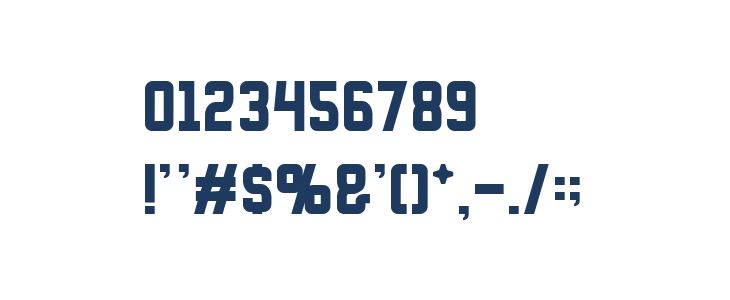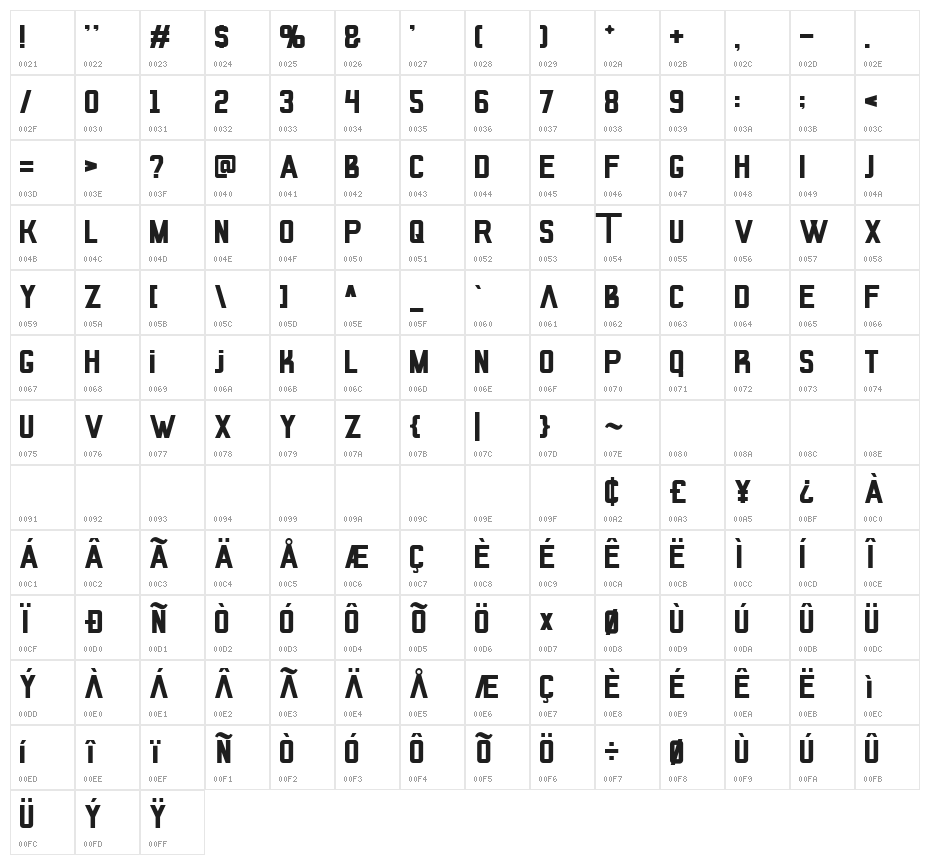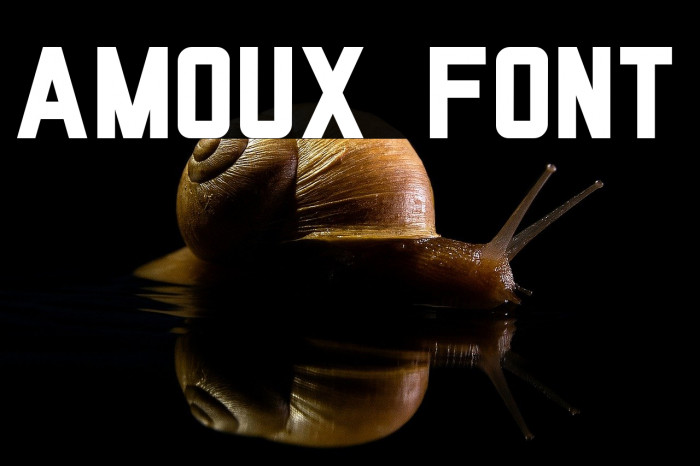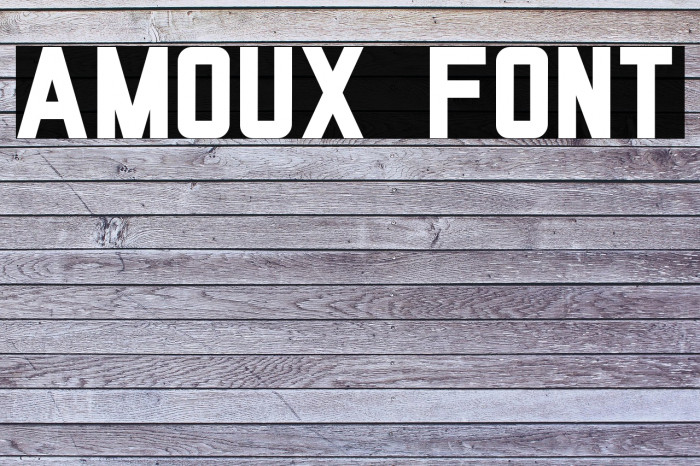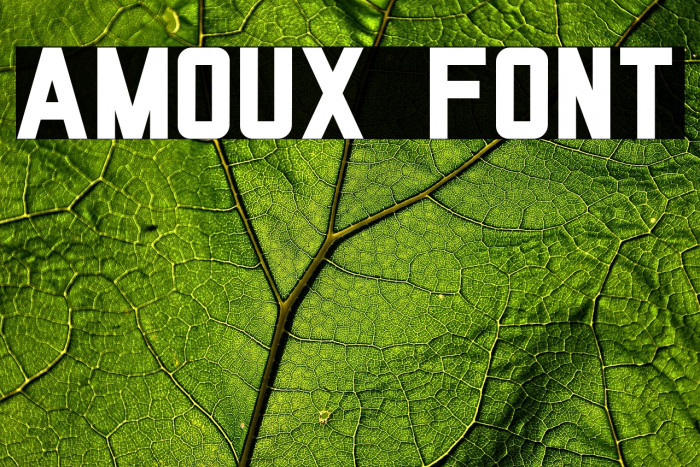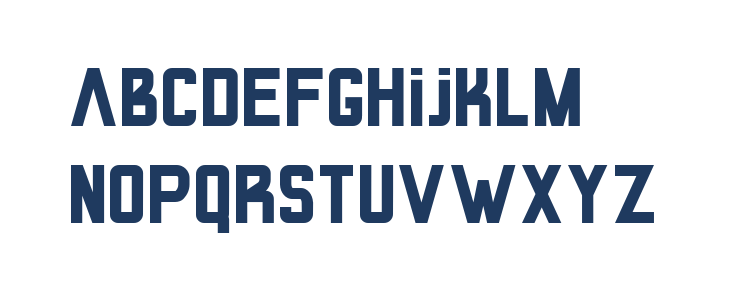
AMOUX Font
AMOUX Description
This font features a bold and assertive design with strong geometric shapes and a modern aesthetic. The uppercase letters are uniform in height, with a slight angularity that gives them a distinct, contemporary look. The lowercase letters maintain a similar style, ensuring consistency across text. Numbers are clear and legible, matching the boldness of the alphabet. Special characters are well-integrated, providing versatility for various uses. The overall design is impactful, making it suitable for attention-grabbing headlines and branding projects.